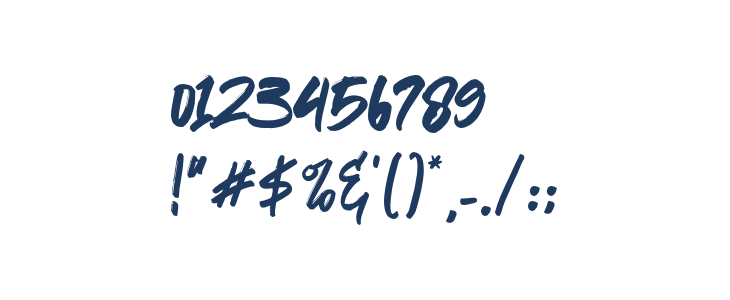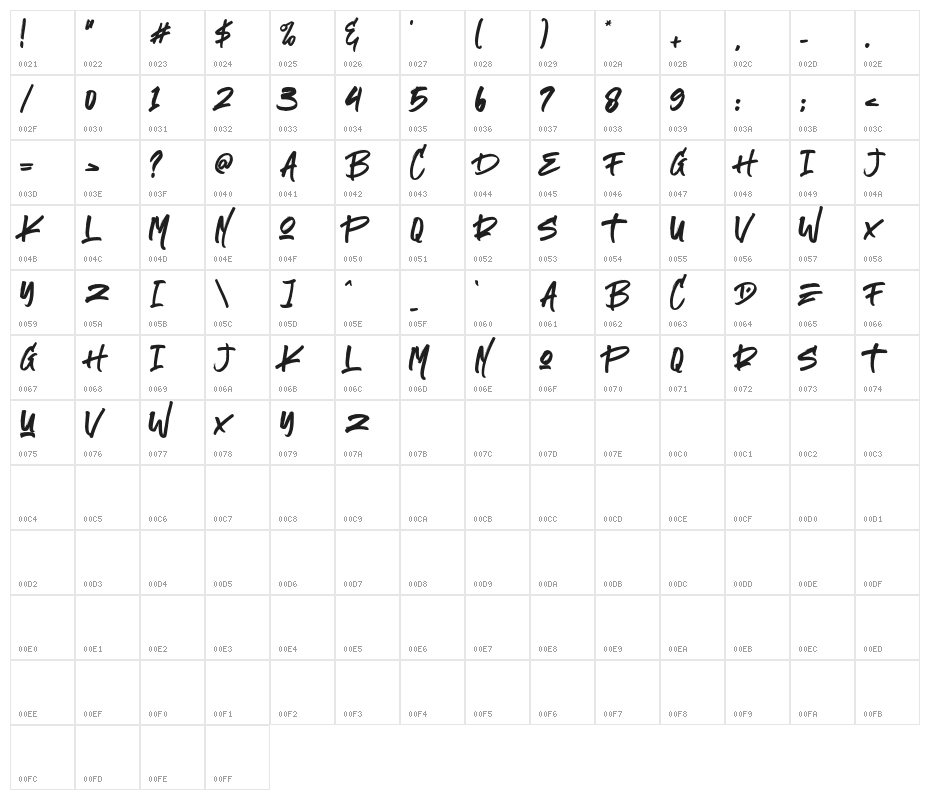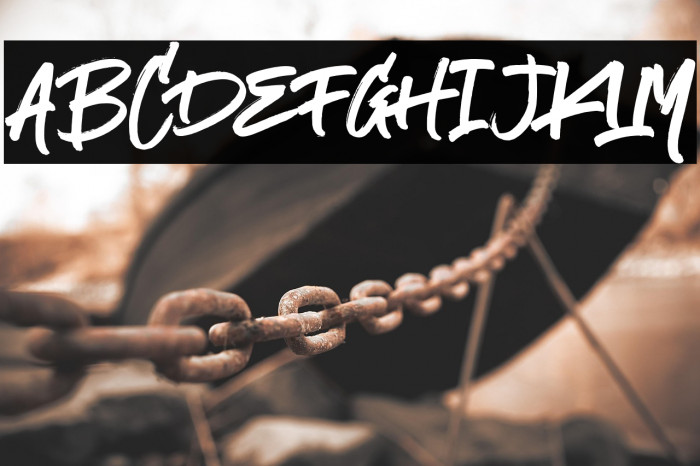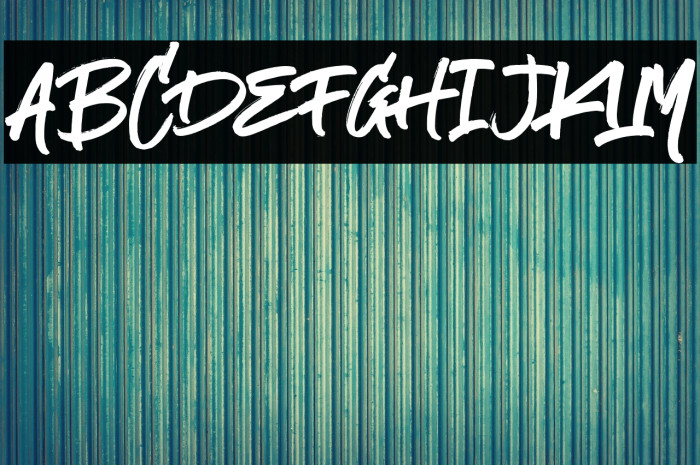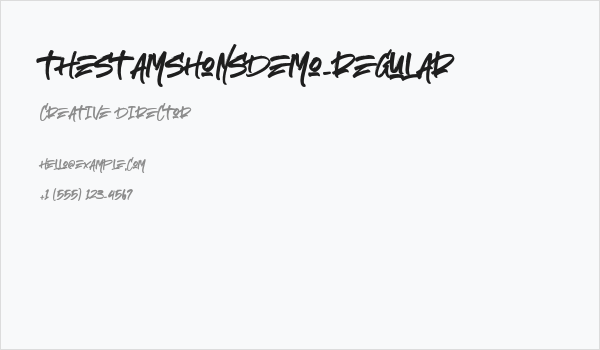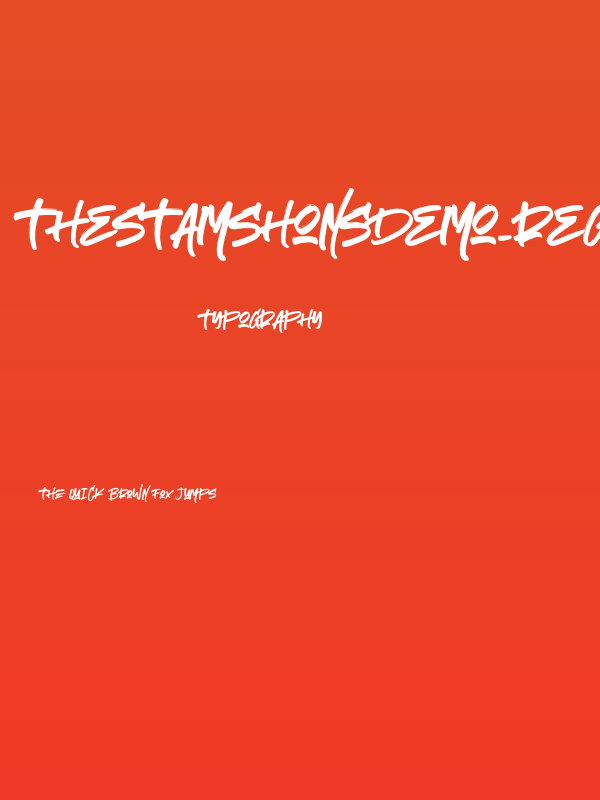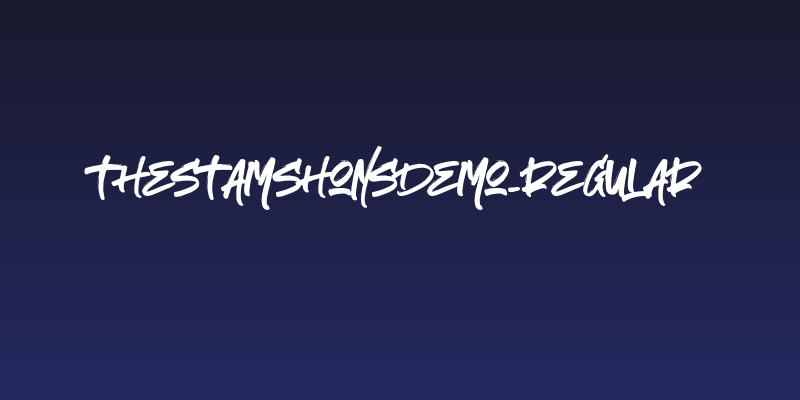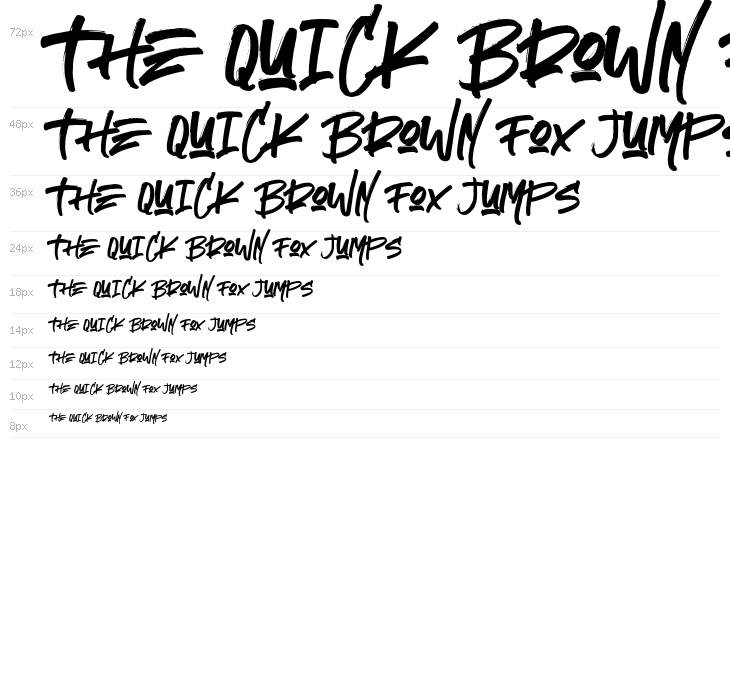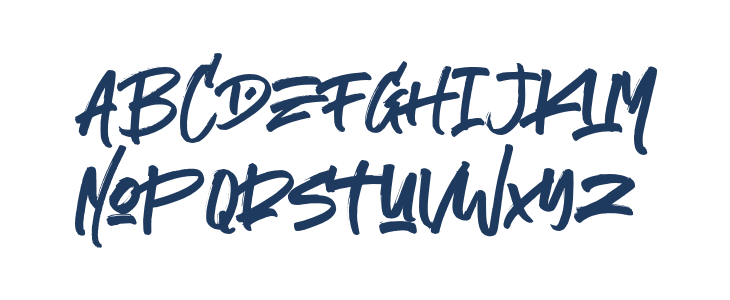
TheStamshonsDemo-regular Font
TheStamshonsDemo-regular Description
This font features a bold and dynamic handwritten style, characterized by its energetic and expressive strokes. The letters are crafted with a sense of movement and flair, giving a lively and informal appearance. The uppercase and lowercase letters maintain a consistent style, with a slightly slanted orientation that adds to the casual feel. The numbers and special characters are equally bold, ensuring readability while maintaining the overall aesthetic. This font is perfect for projects that require a personal touch or a sense of spontaneity.
| Proposed Projects | Ideal for branding, posters, social media graphics, and any design that needs a personal, energetic touch. |